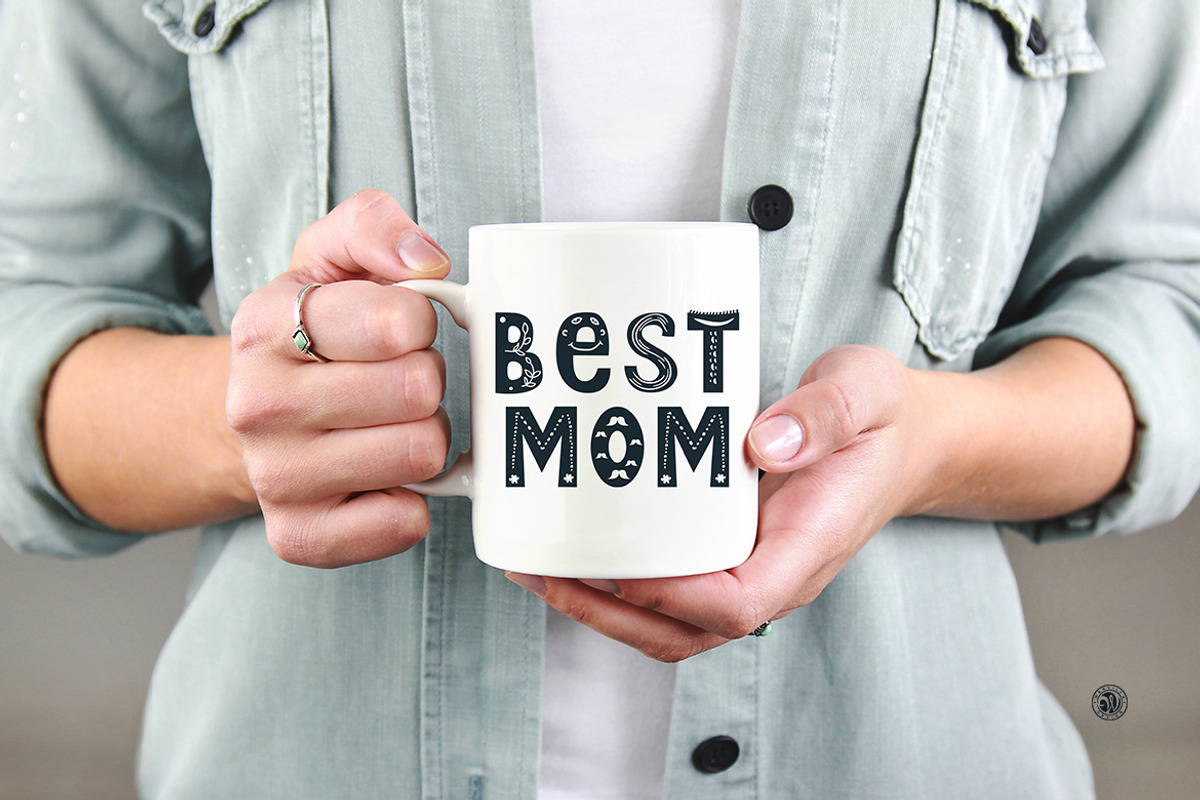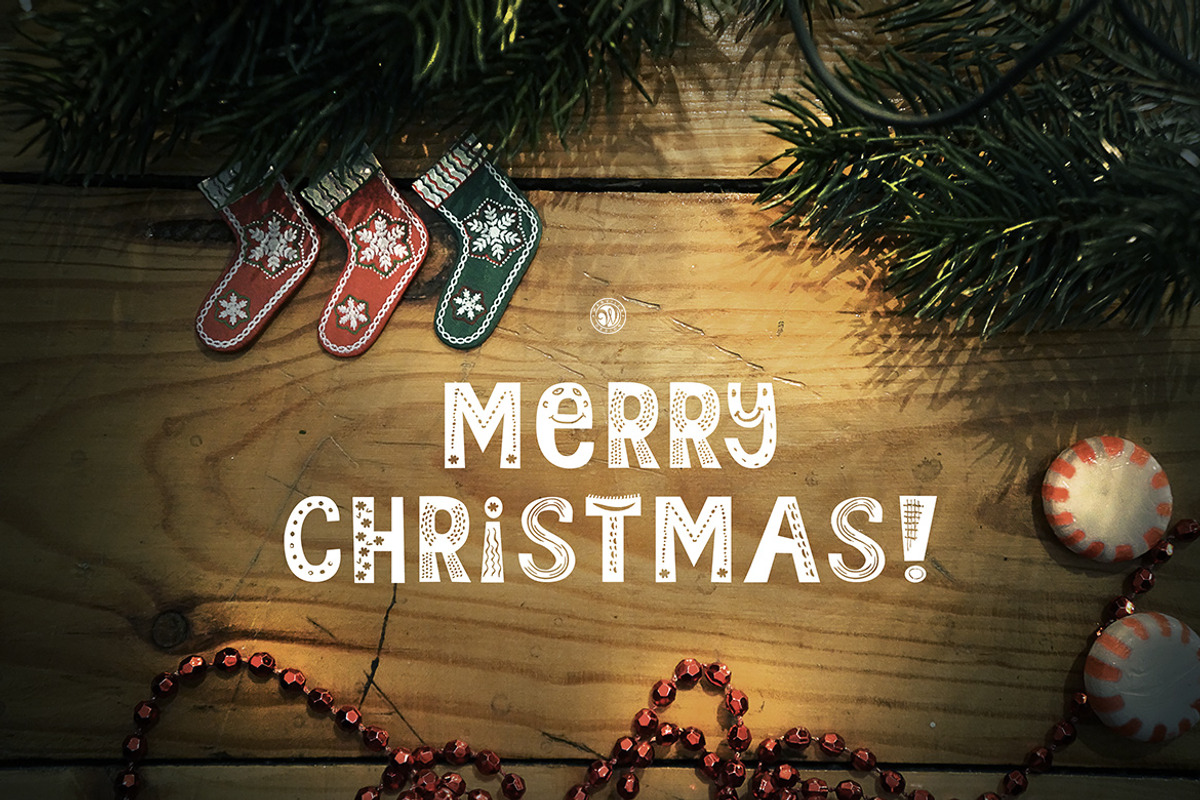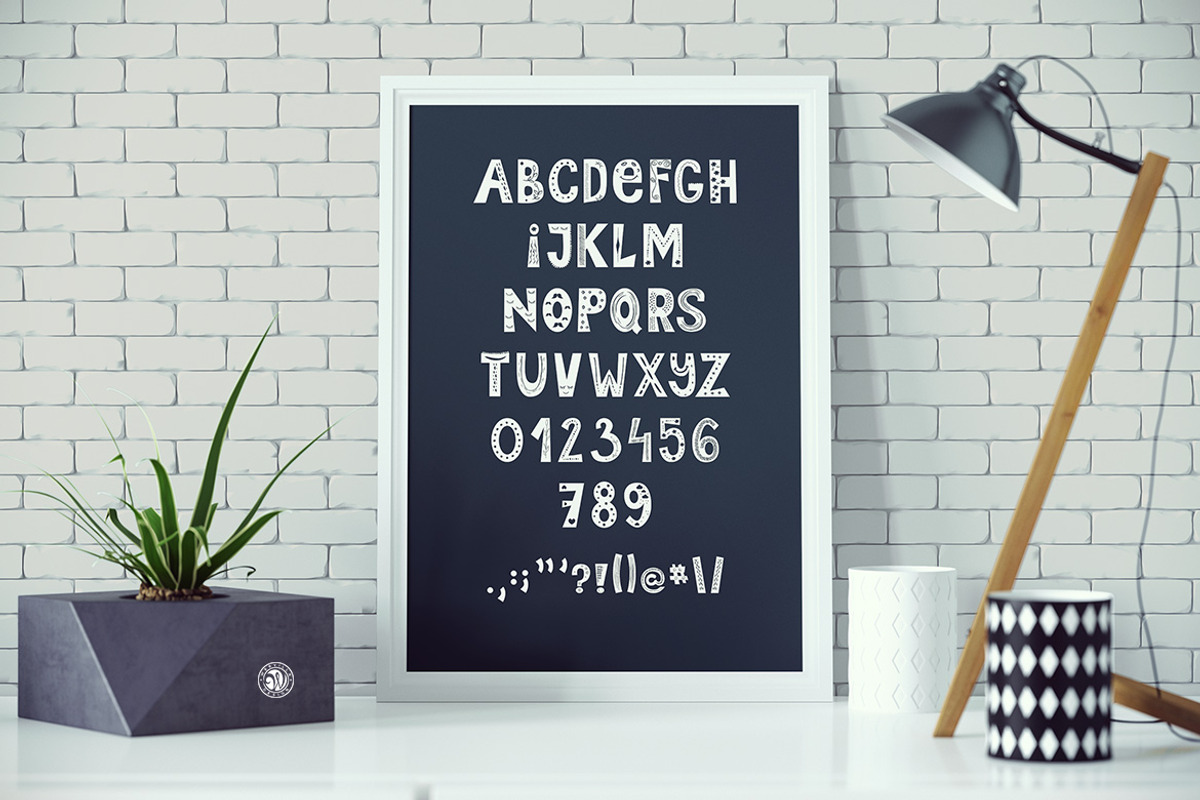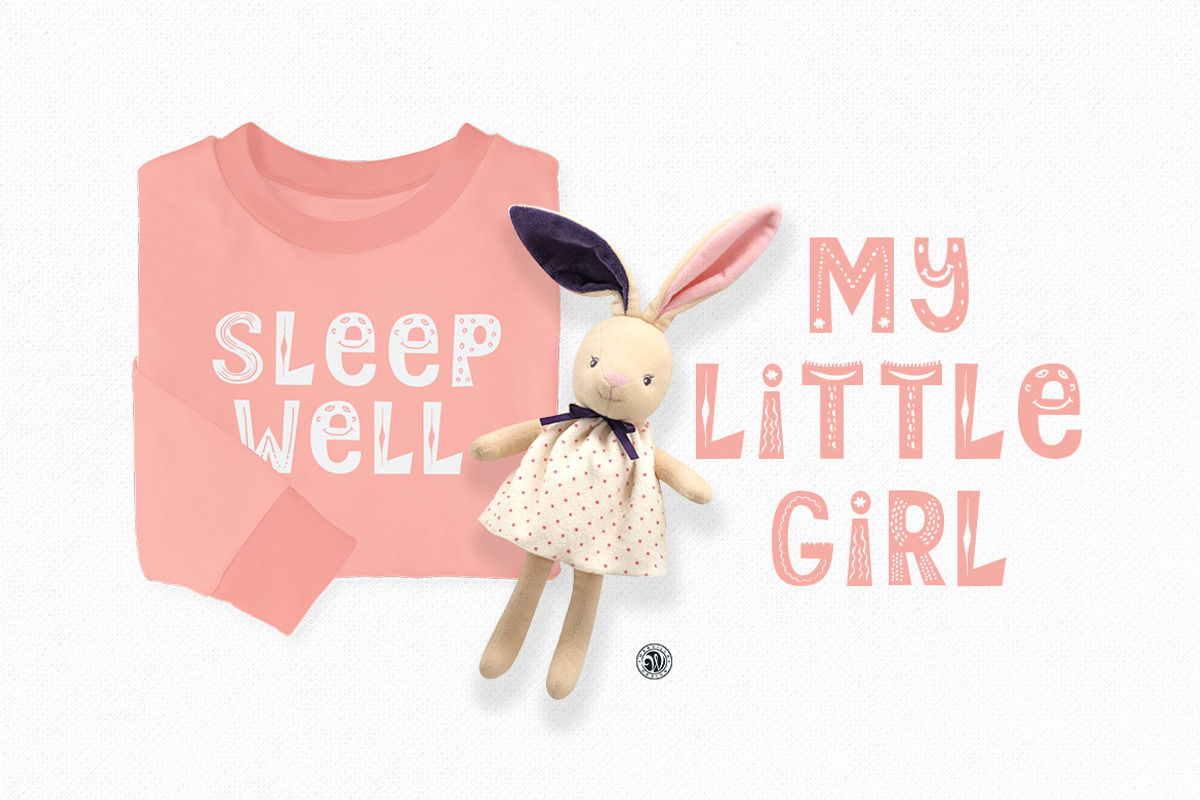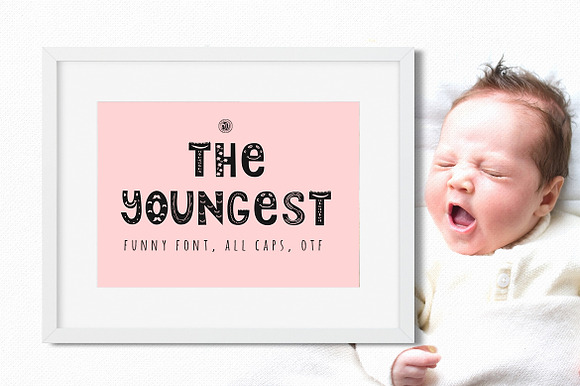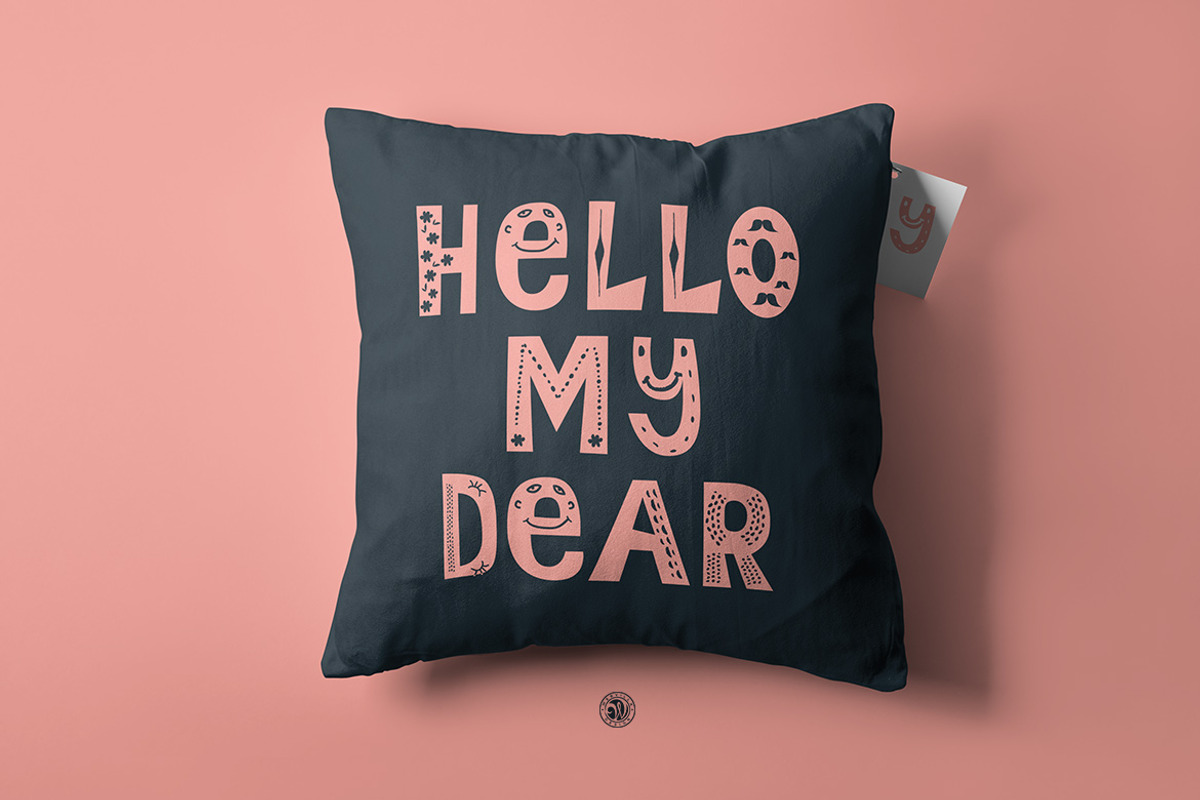
The Youngest Font
The Youngest Font - all caps font. Ideal for invitations, logos, branding, blogs, handmade craft items, printed paper items and more.
all caps font, numbers, punctuation
The Youngest Font by Webvilla Studio fits naturally into Branding, posters, packaging, typography.